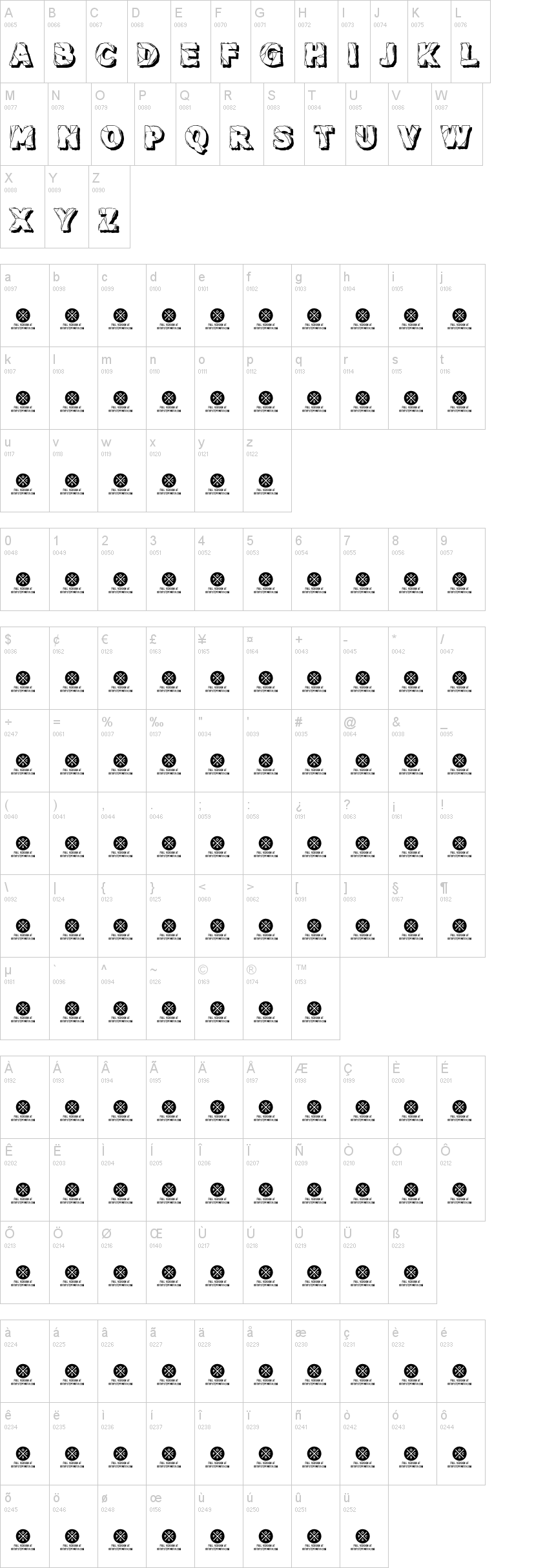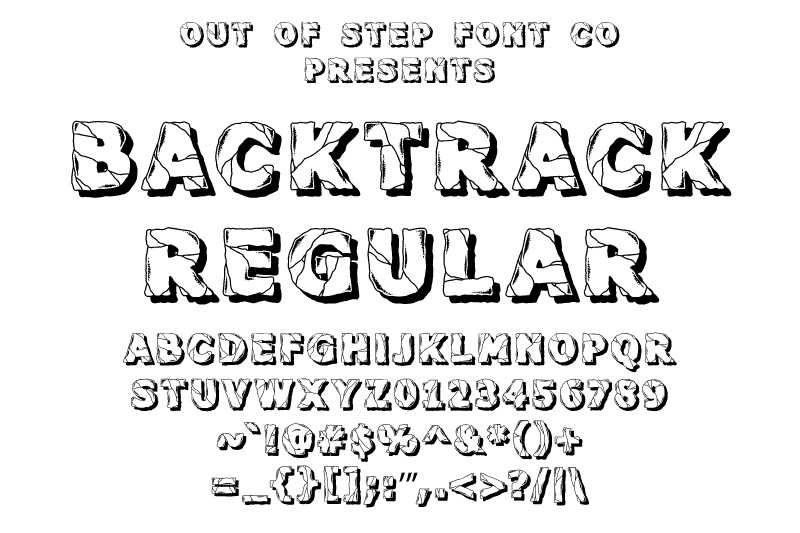
Note of the authorThank you for downloading our new Backtrack Regular font! This font was inspired by a graphic from the hardcore band Backtrack. This limited version of the font is available for your demo use.